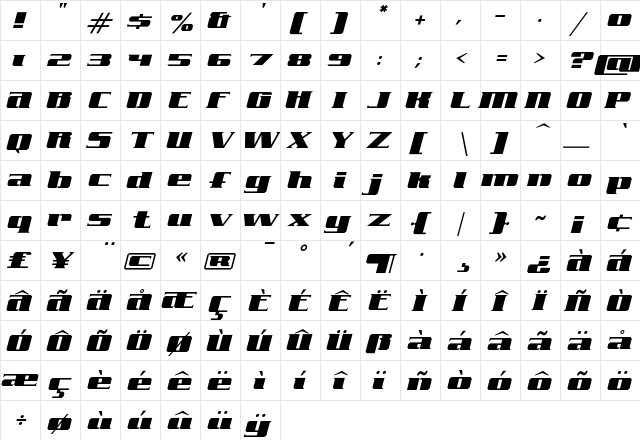
FreeLine SerifCruiser
Design Context for FreeLine Typeface
FreeLine brings classic typographic sensibility to the table — its serifs and measured letterforms reflect centuries of print heritage.
Pro Tip: Set FreeLine with slightly loose tracking in headlines to let each letterform's detail read clearly at display sizes.